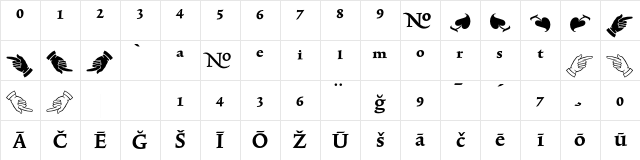
TriniteNo1 BoldPi
Style: BoldPi
Design Context for TriniteNo1
TriniteNo1 is a composed and adaptable typeface that performs quietly and consistently across a wide range of design contexts. Its bold stroke weight gives it real presence on the page.